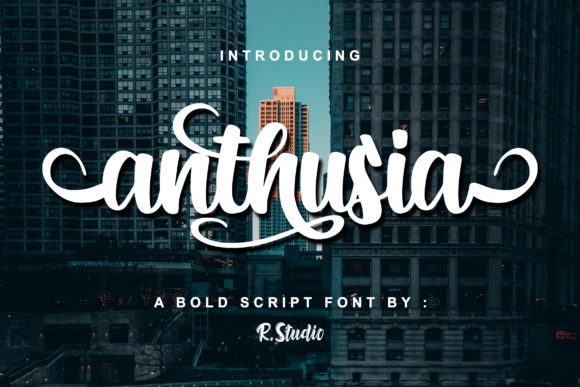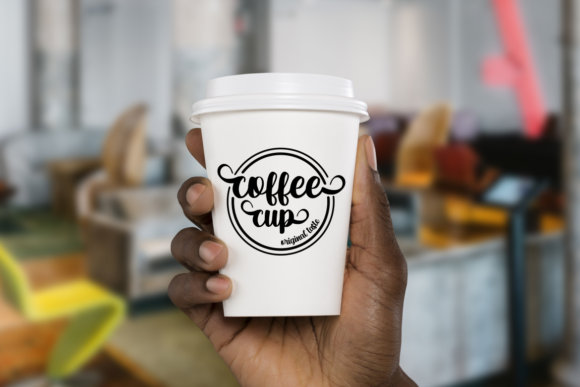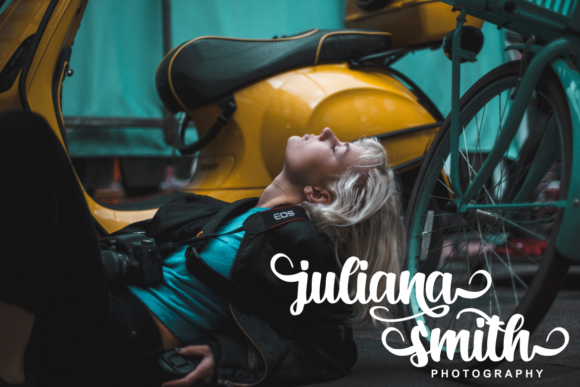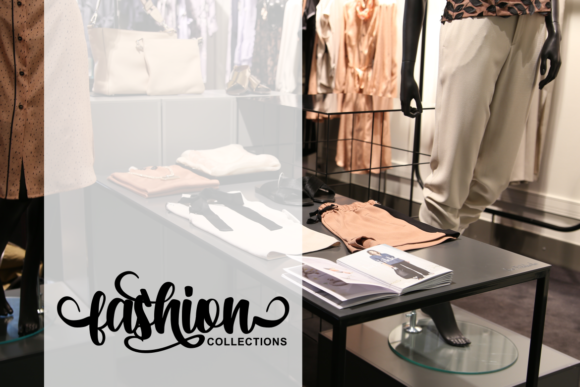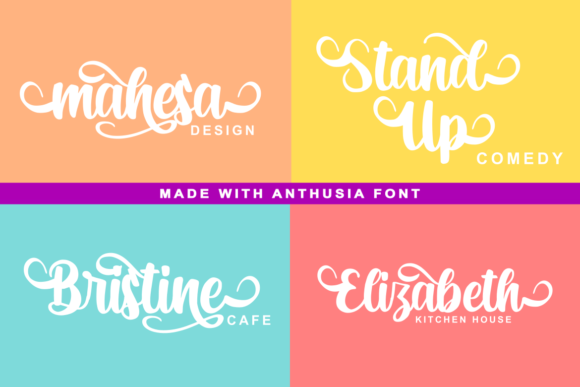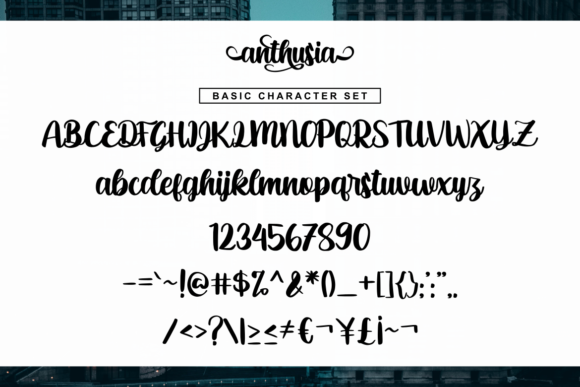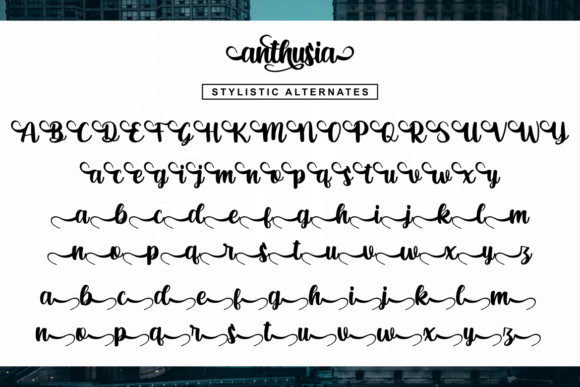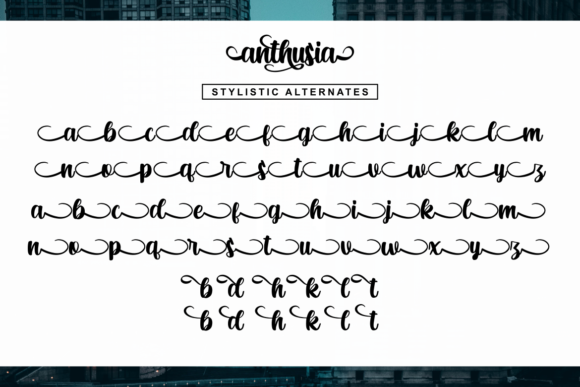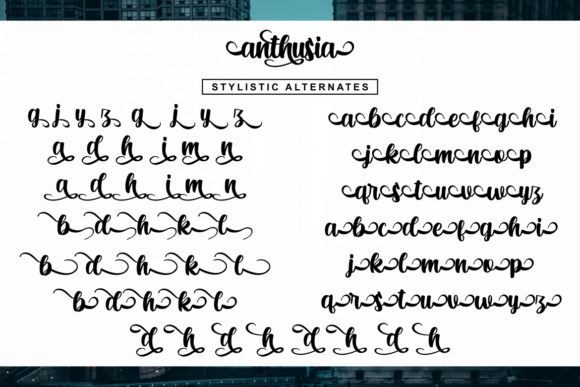
Anthusia Font
About Anthusia Font
Anthusia is a bold script font with strong natural movements. Get inspired by its unique feel, and turn any design project into a stunner.